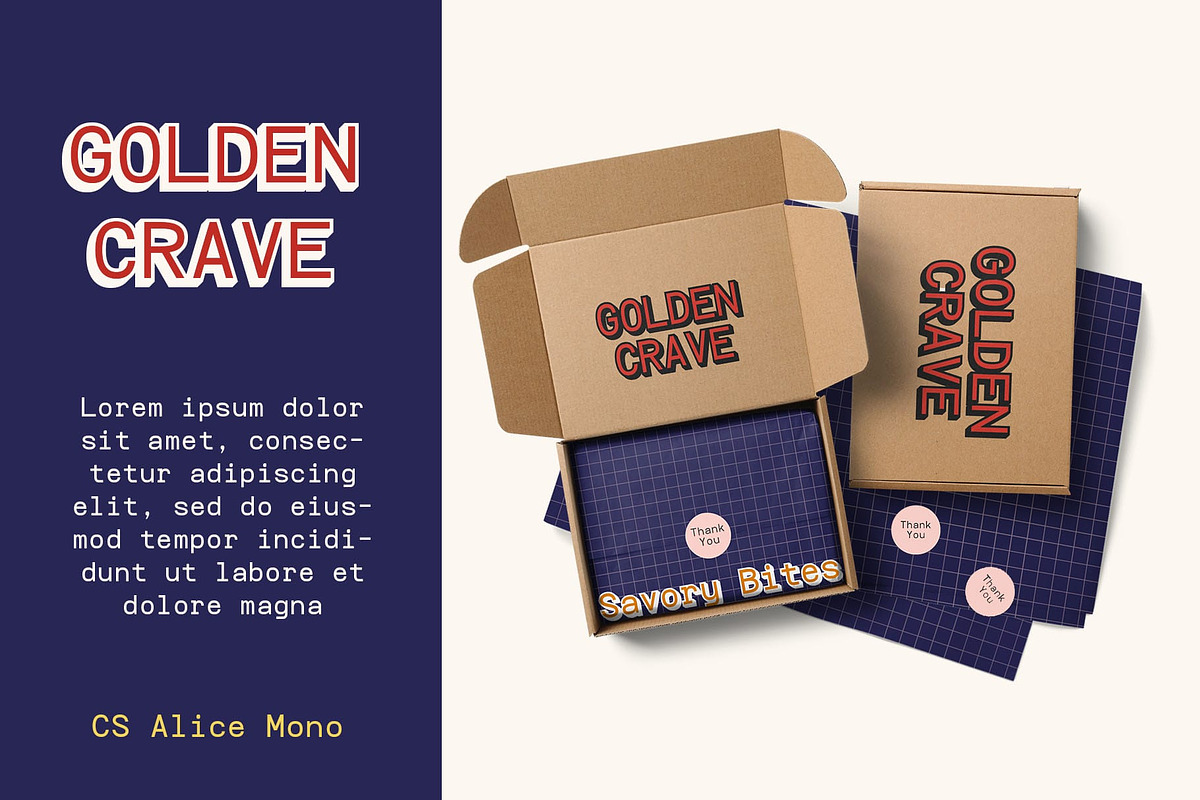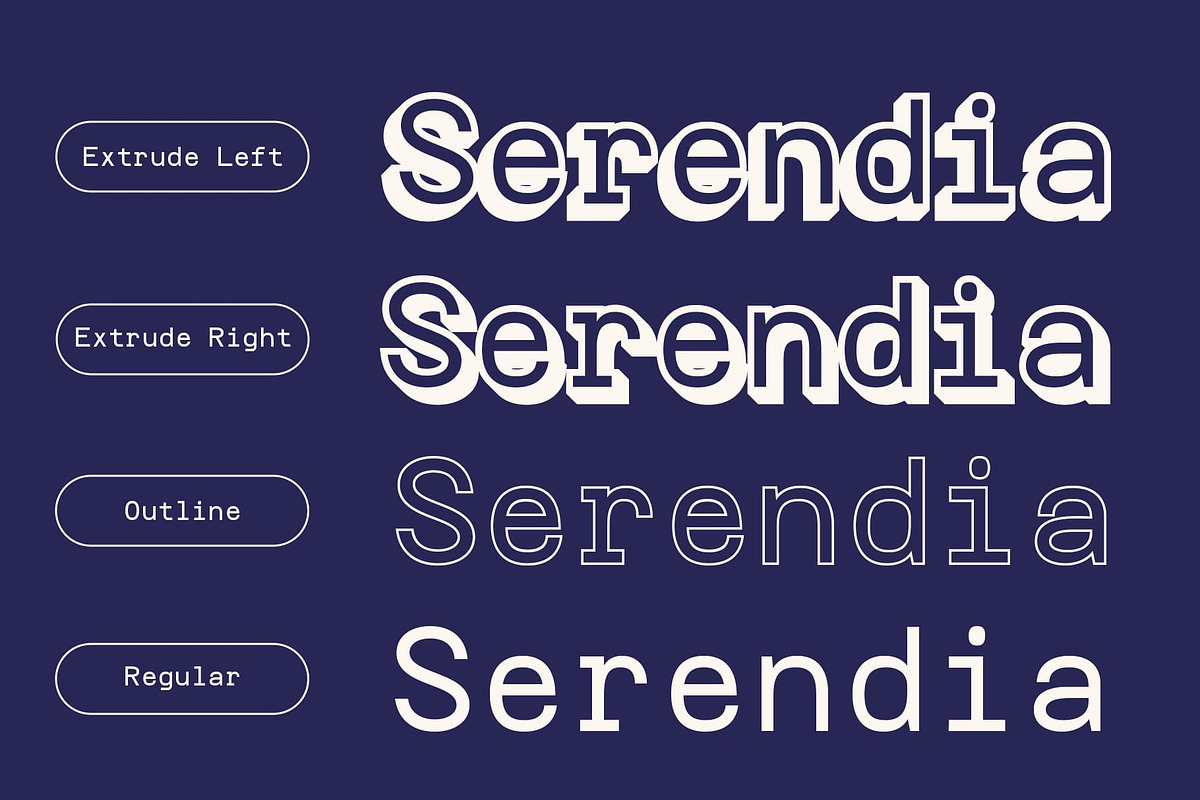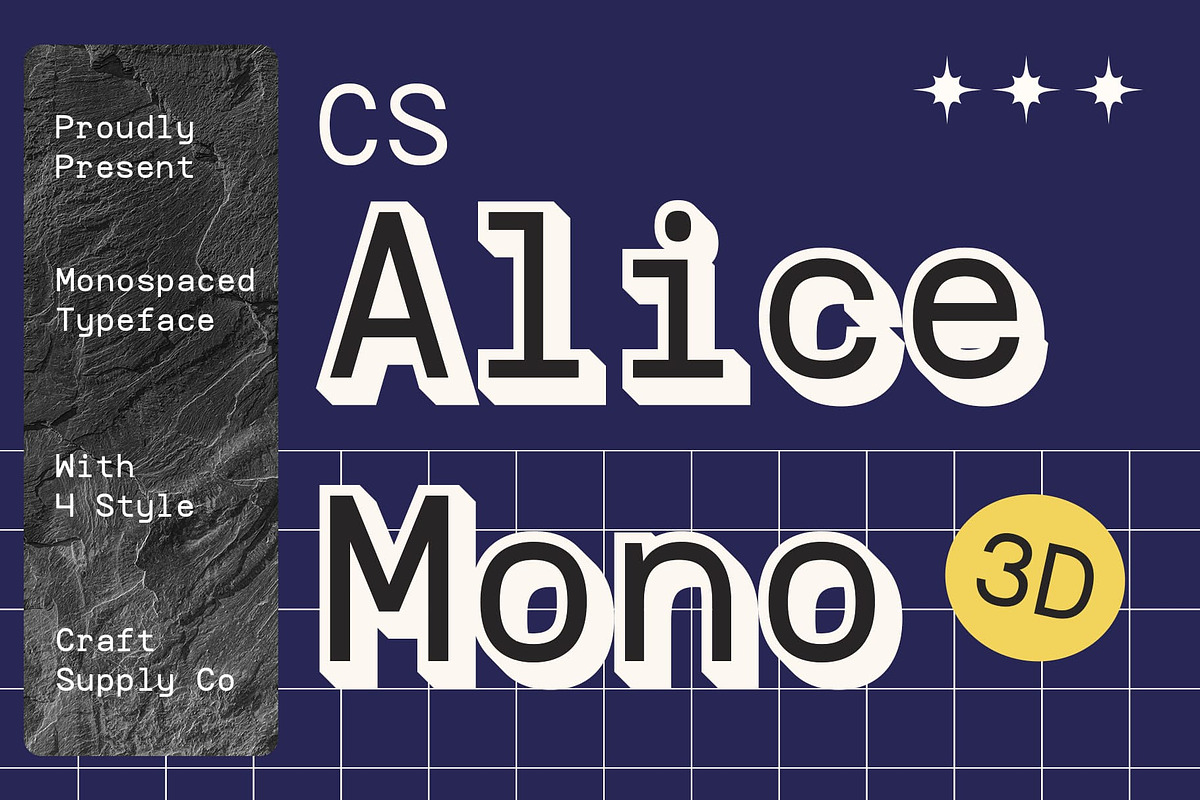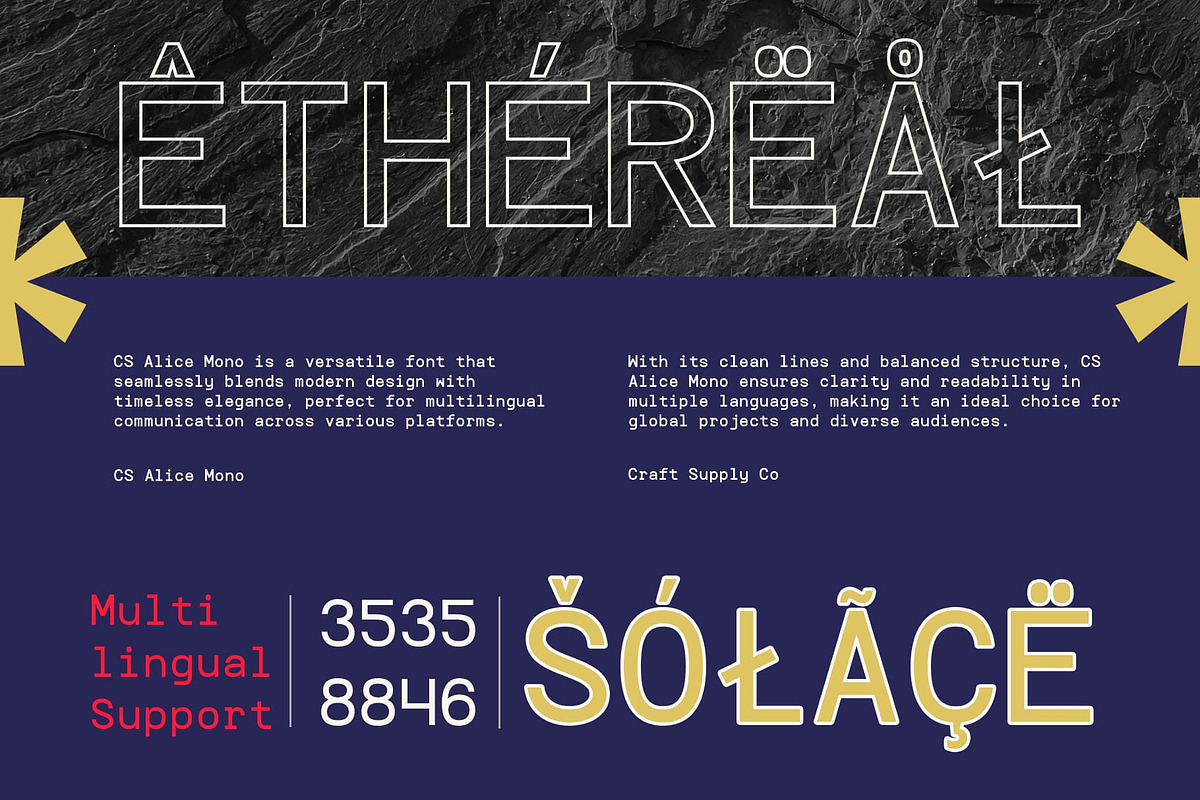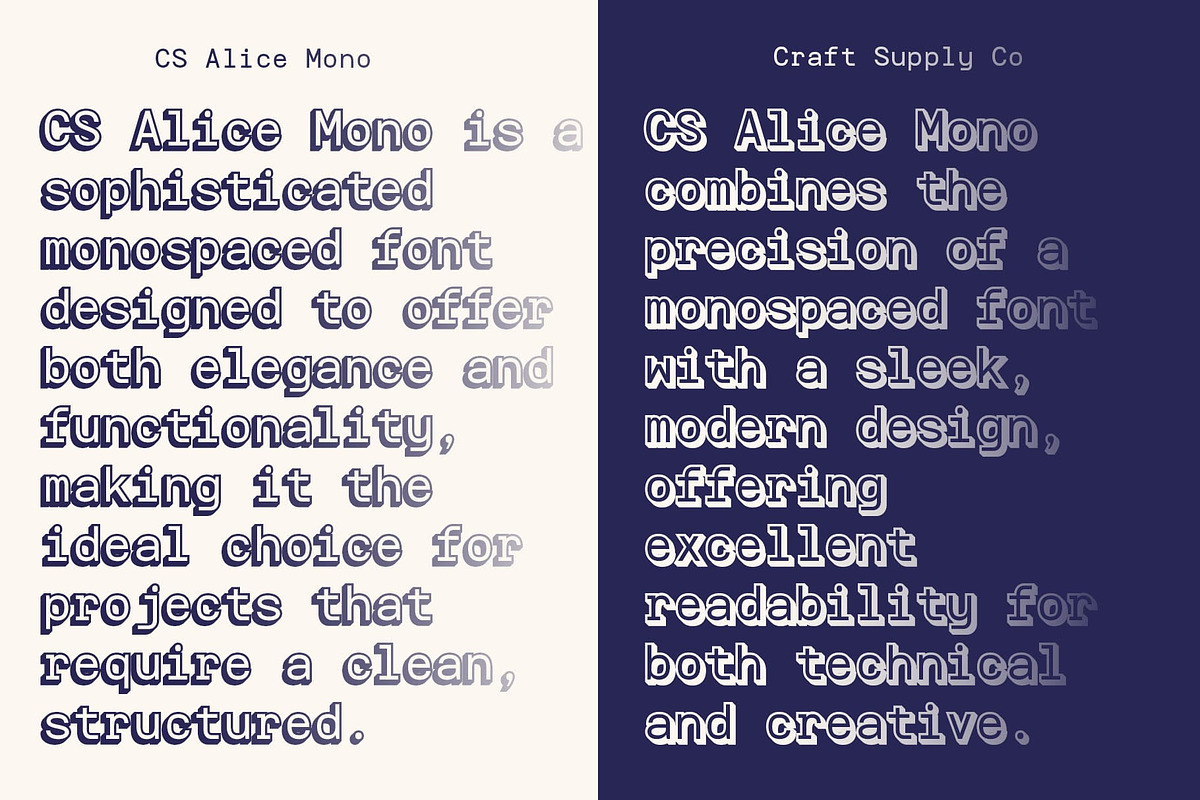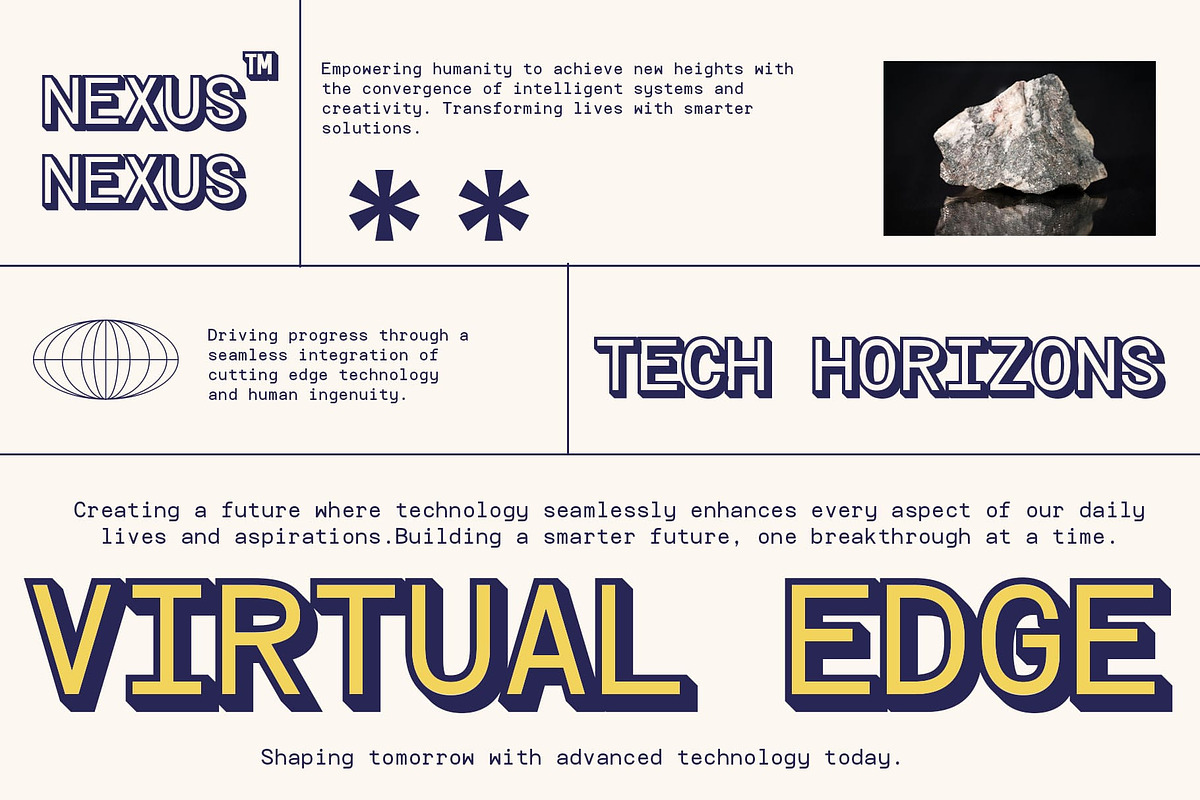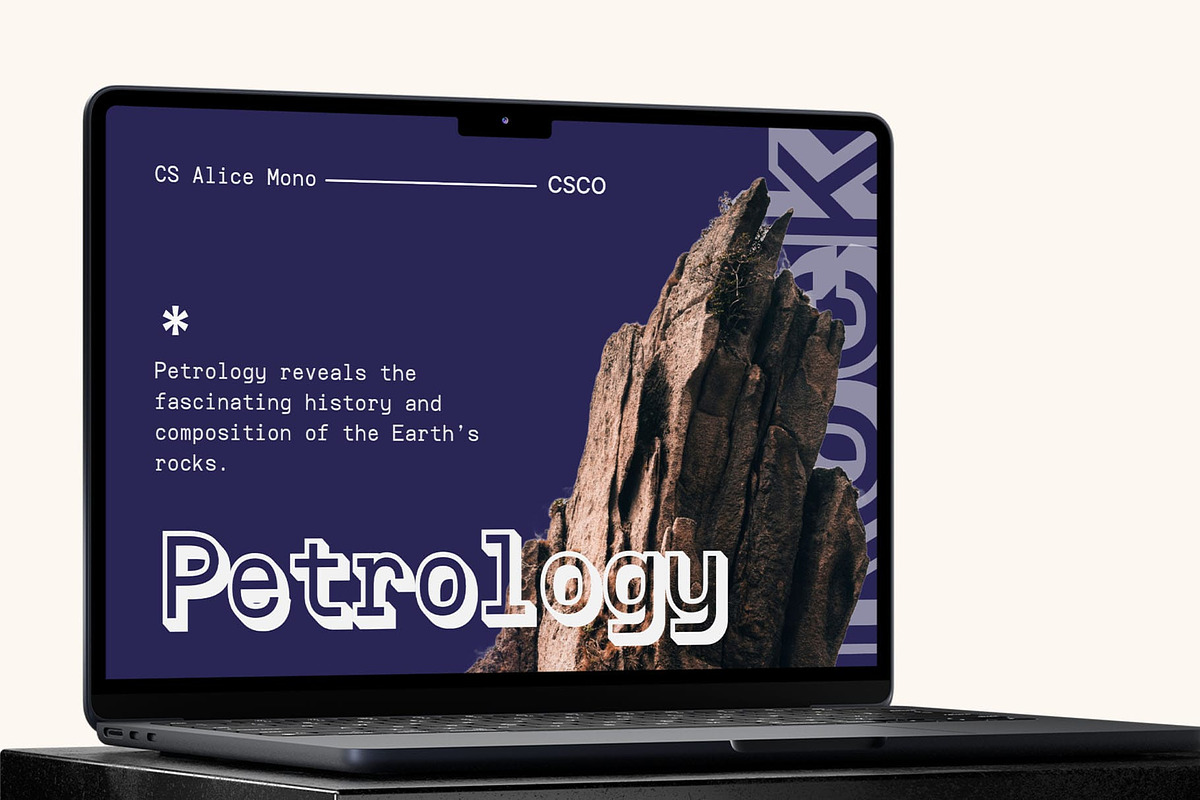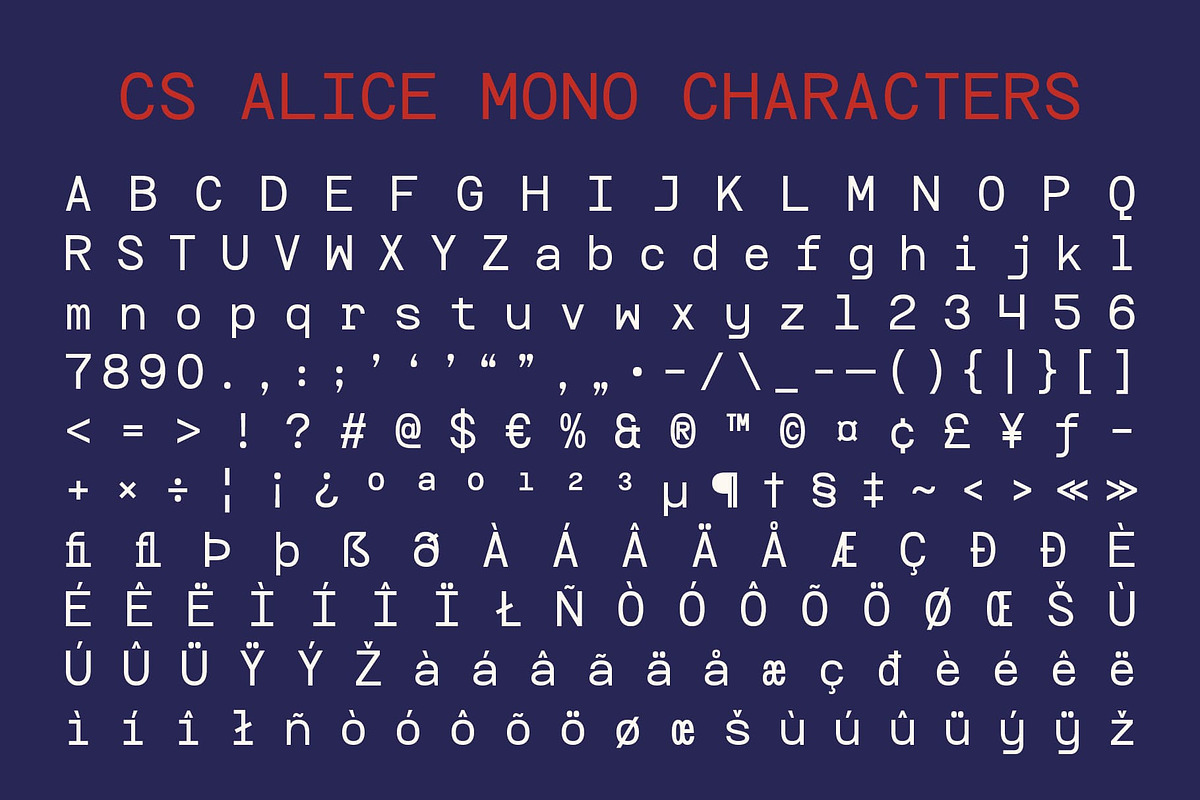
CS Alice Mono 3D
CS Alice Mono 3D – A Bold Fusion of Precision and Depth
Monospaced Precision Meets Dynamic 3D Effect CS Alice Mono 3D is a modern sans-serif font that combines the precision of a monospaced design with the captivating depth of a three-dimensional effect. The monospaced structure ensures uniform spacing between characters, offering a clean, technical appearance that brings clarity and organization to any design. The added 3D effect injects a dynamic, bold dimension, creating an impactful visual that stands out.
Structured and Technical with a Futuristic Edge The monospaced design in CS Alice Mono 3D delivers a sense of order and consistency, making it ideal for digital interfaces, coding environments, or any design where clarity is paramount. Its 3D treatment adds a layer of depth, creating a futuristic and modern aesthetic. This font is perfect for tech-related branding, digital media, or anything that demands a combination of technical precision and striking visual appeal.
Perfect for Tech Branding and Digital Interfaces With its combination of structured precision and bold 3D visuals, this monospaced font is ideal for tech branding, user interfaces, and futuristic designs. Whether you are designing a website, app, or digital product, this font provides the perfect balance of readability and cutting-edge style.
- CS Alice Mono Regular
- CS Alice Mono Outline
- CS Alice Mono Extrude Right
- CS Alice Mono Extrude Left